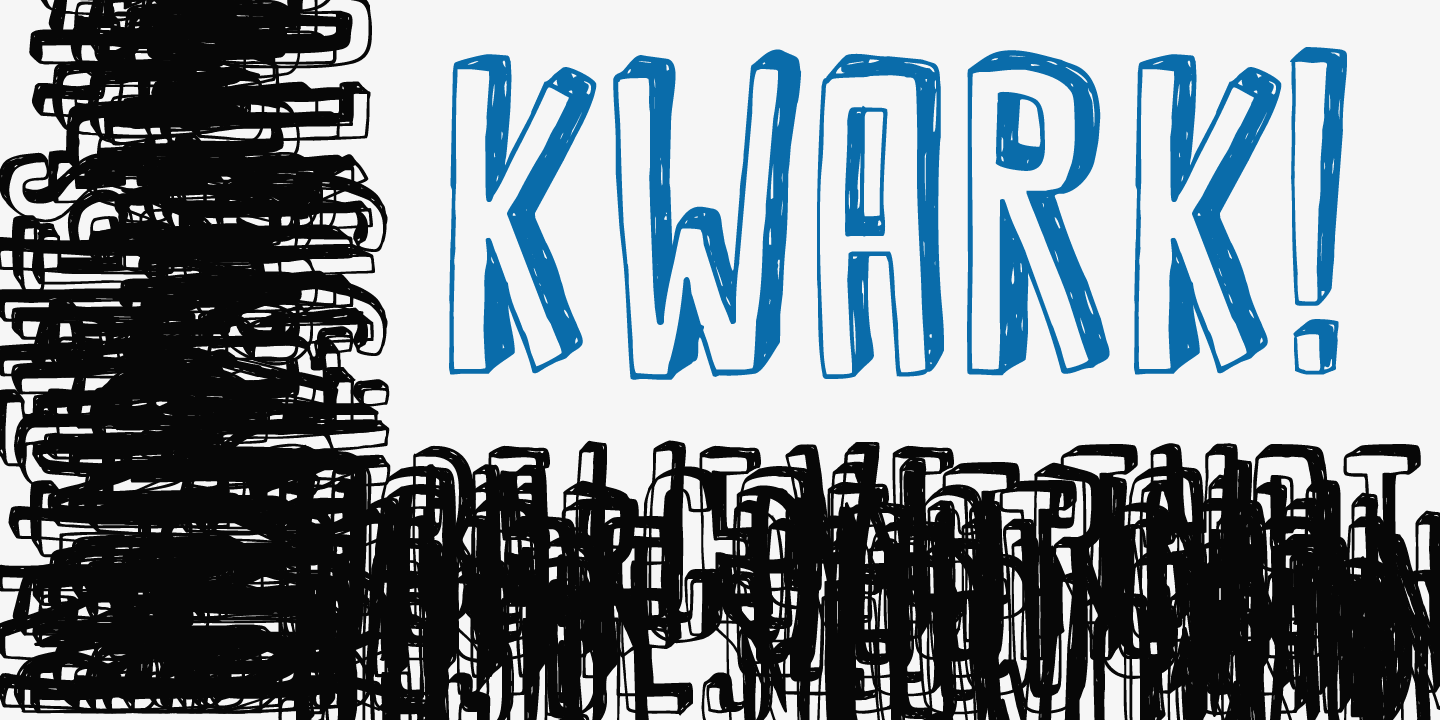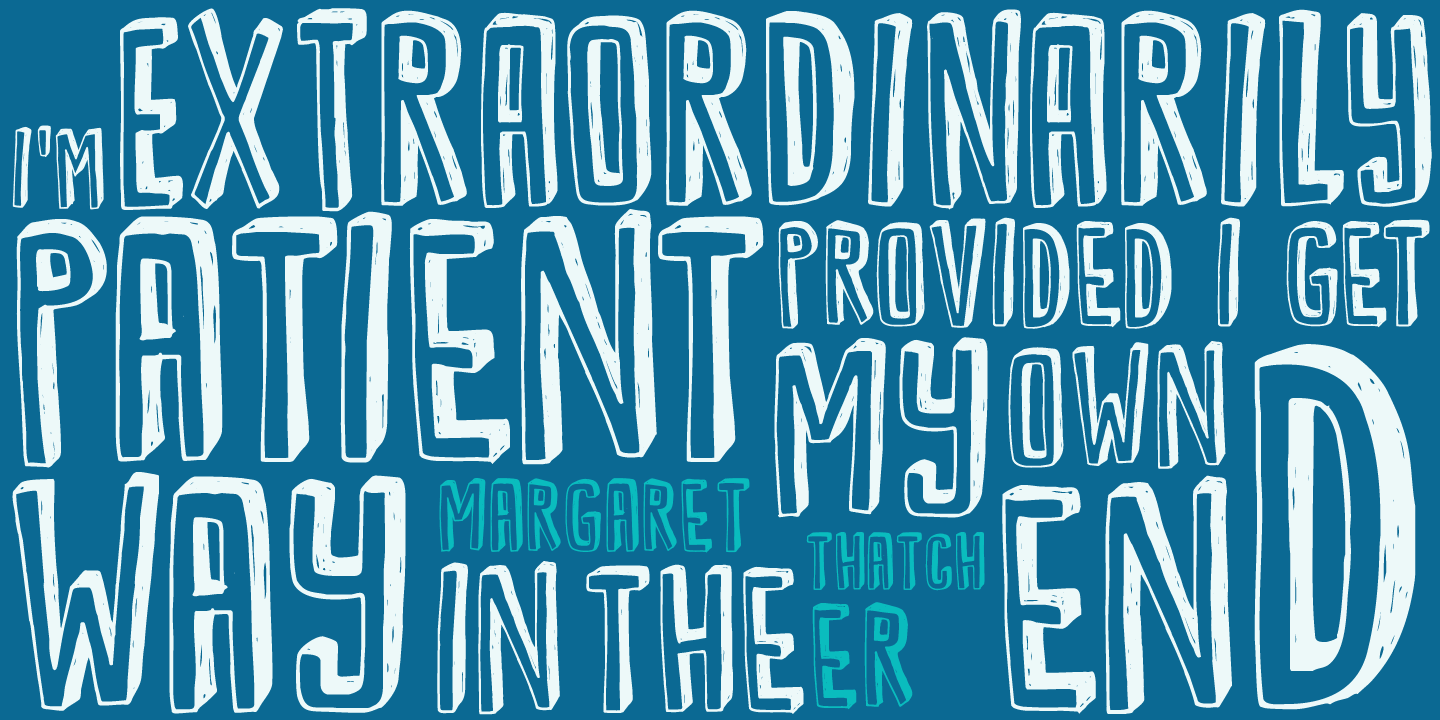
Kwark
Kwark is a nice, cartoonesque outline font with a bit of grunginess. Yes, it is an all caps font, but upper- and lowercase letters differ in shape, so you can mix and match.
The name is not really related to the way the font looks: kwark means ?curd? in Dutch. You think that sounds delicious? Well, then give Kwark a try!